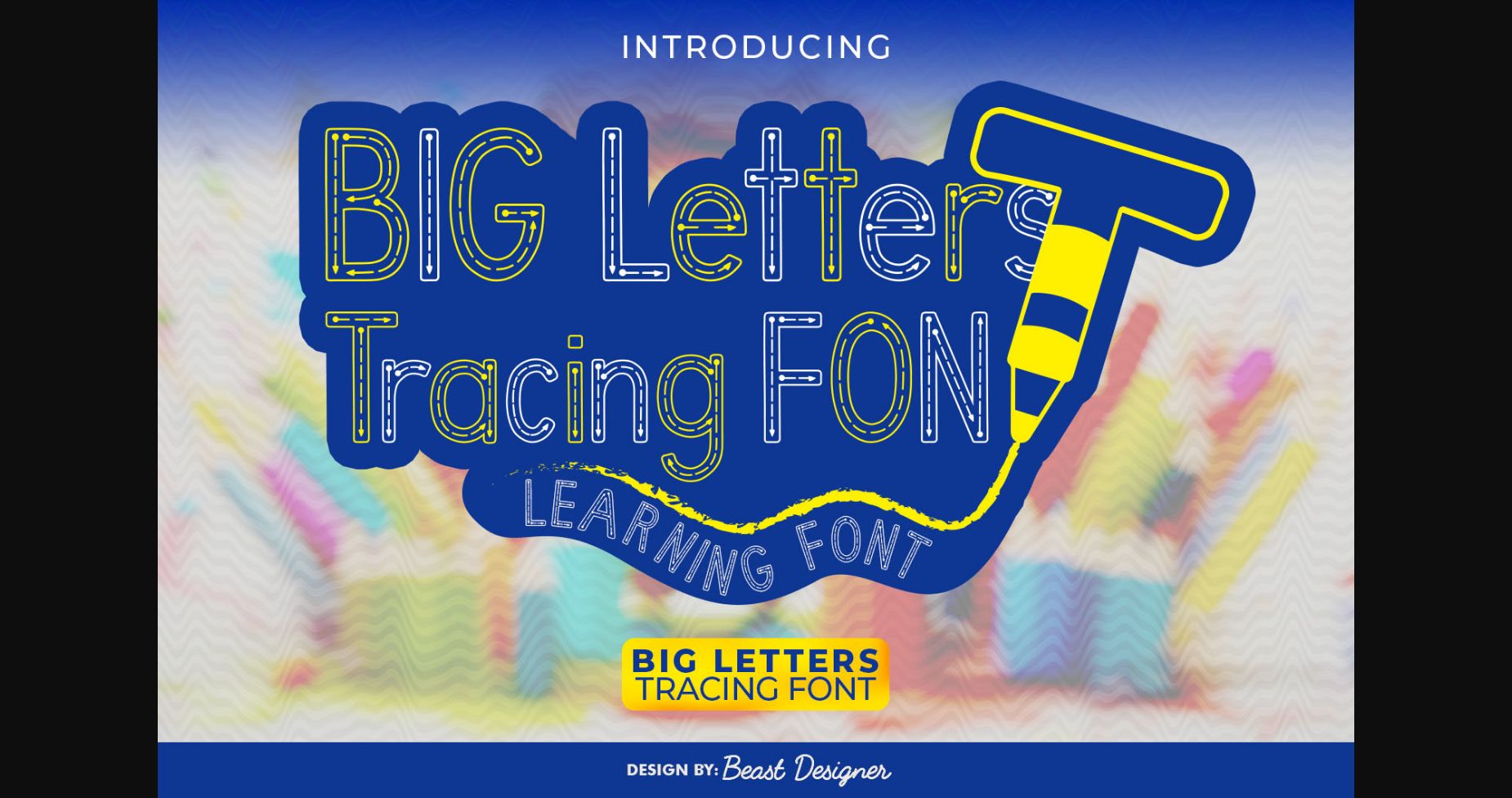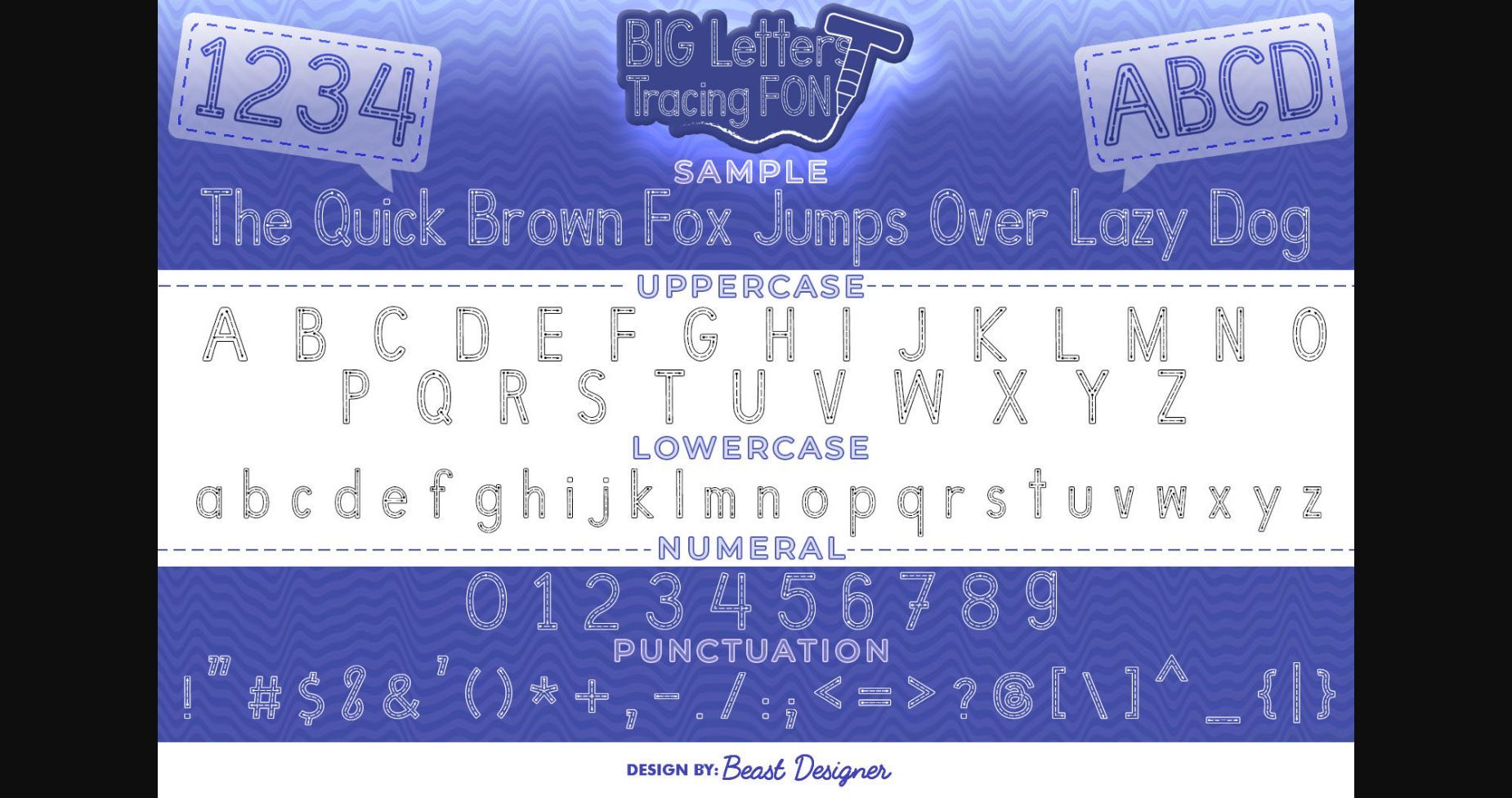
Big Letters Tracing Font
The Big Letters Tracing Font for Pre-K is a friendly and clear font designed for young children to learn writing.
It includes dotted tracing guides for each letter, making it easy for kids to practice their handwriting.
With consistent letter shapes, ample spacing, and a playful appearance, this font is perfect for preschools and early learning materials to help kids develop their writing skills with joy and ease.